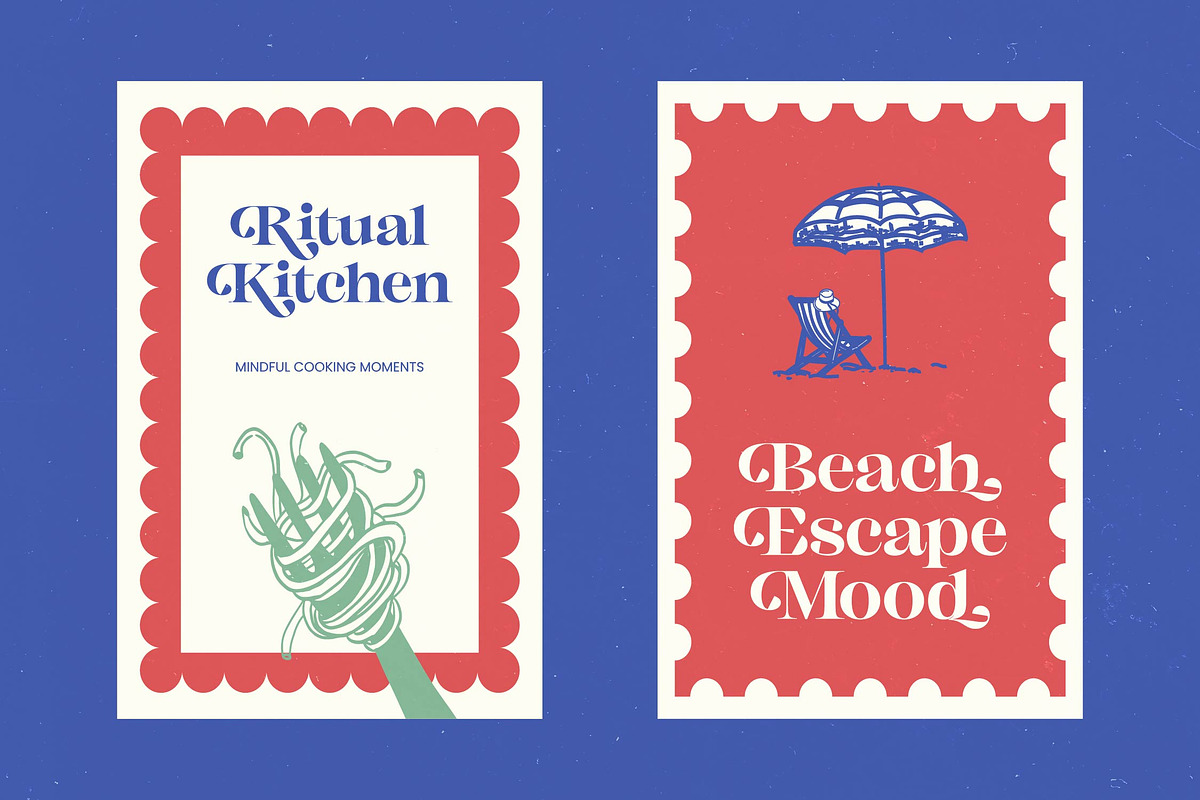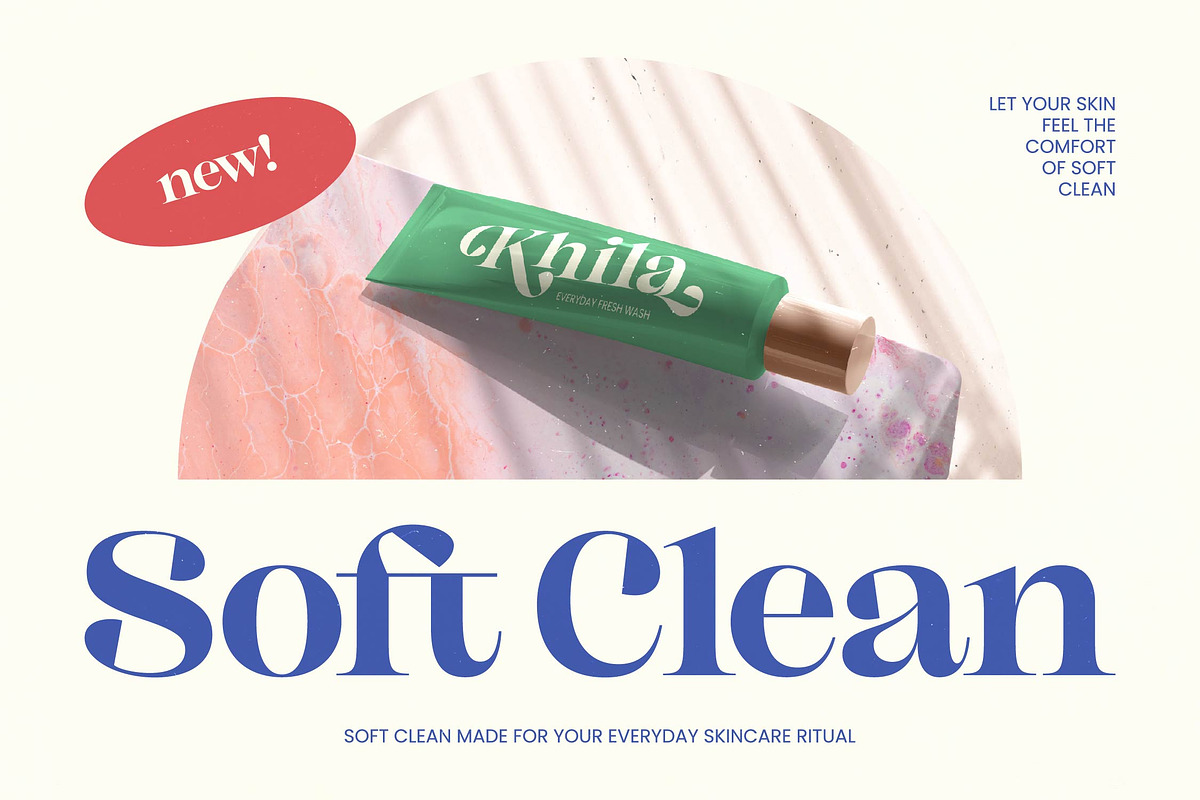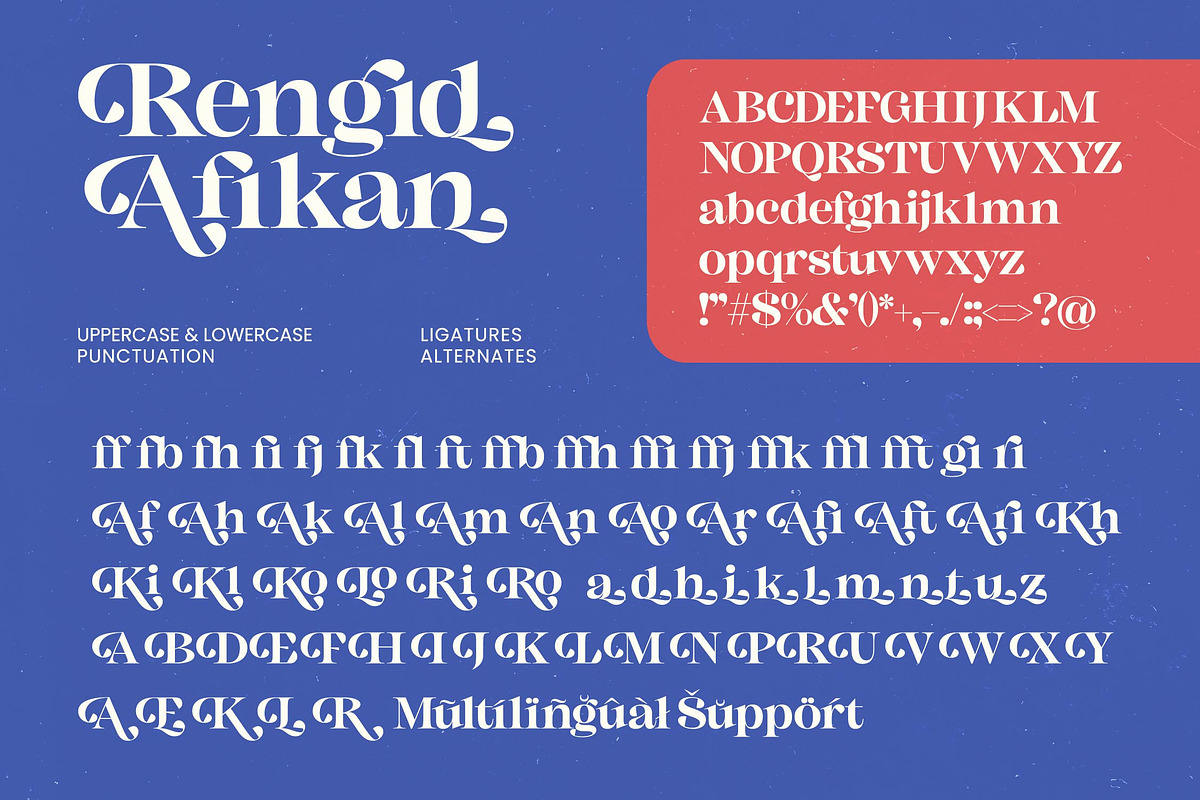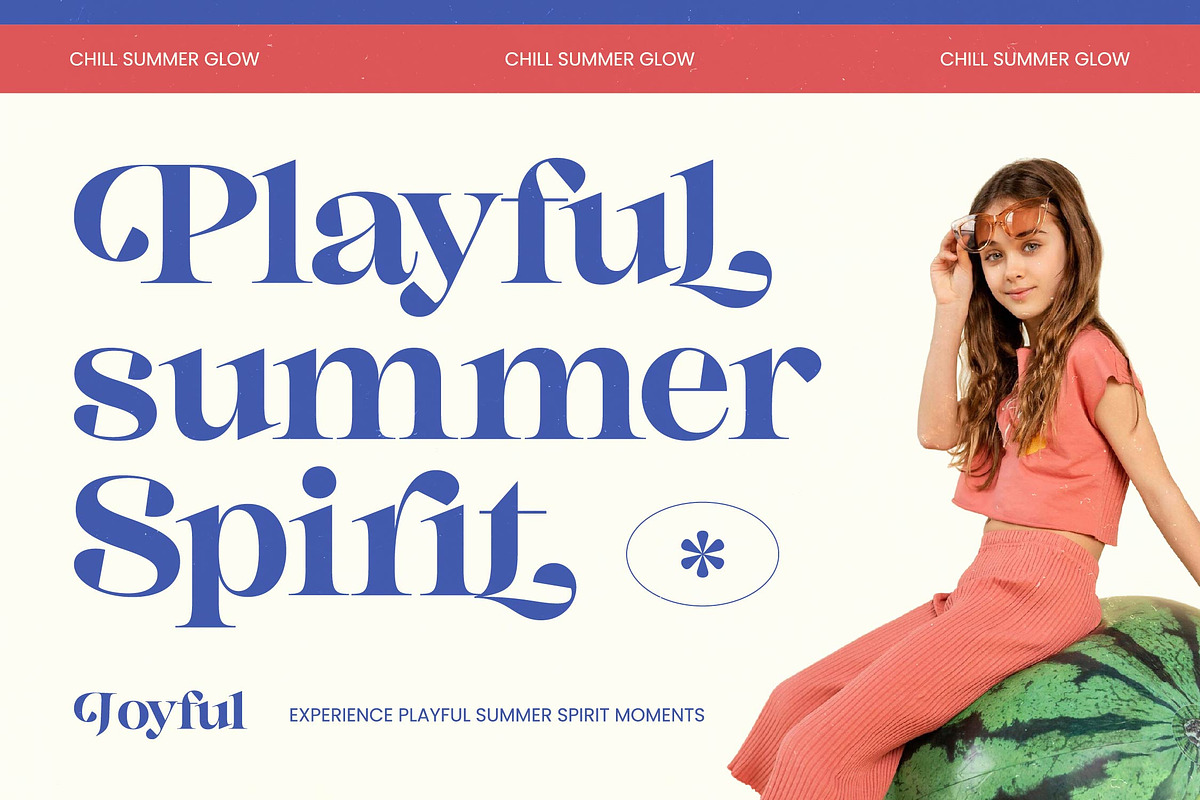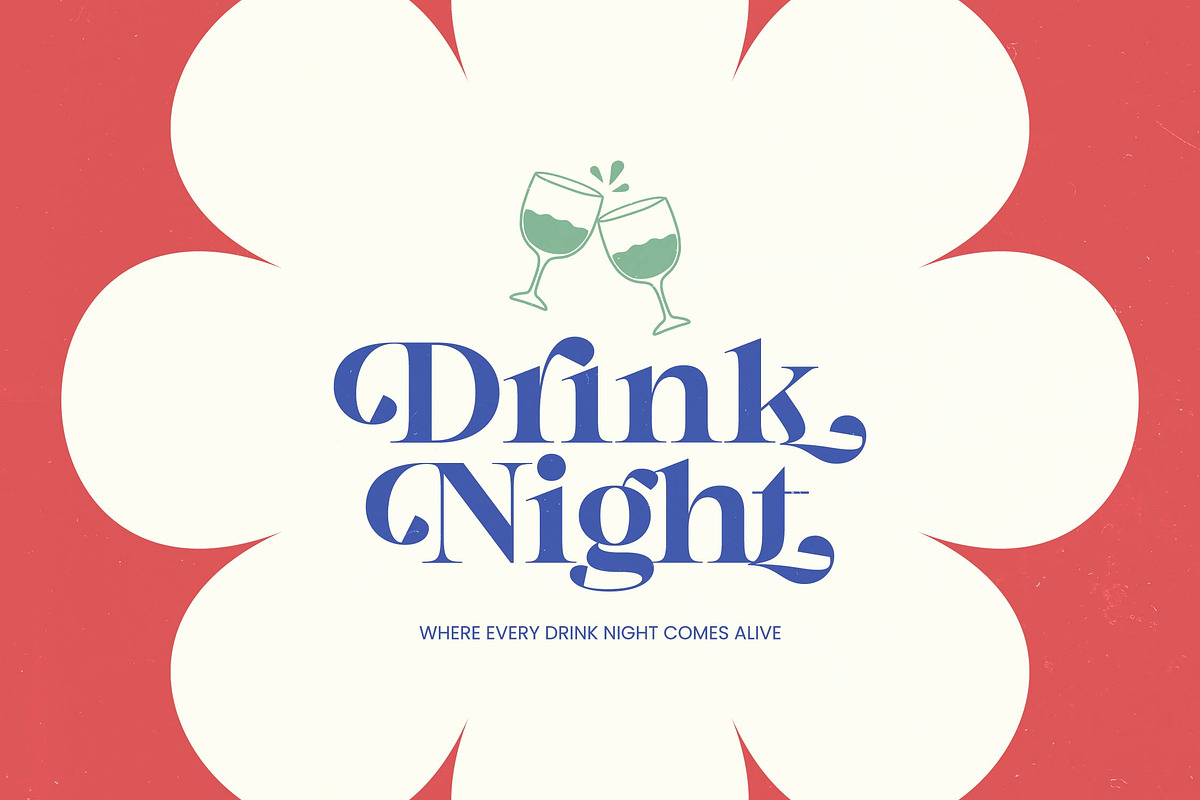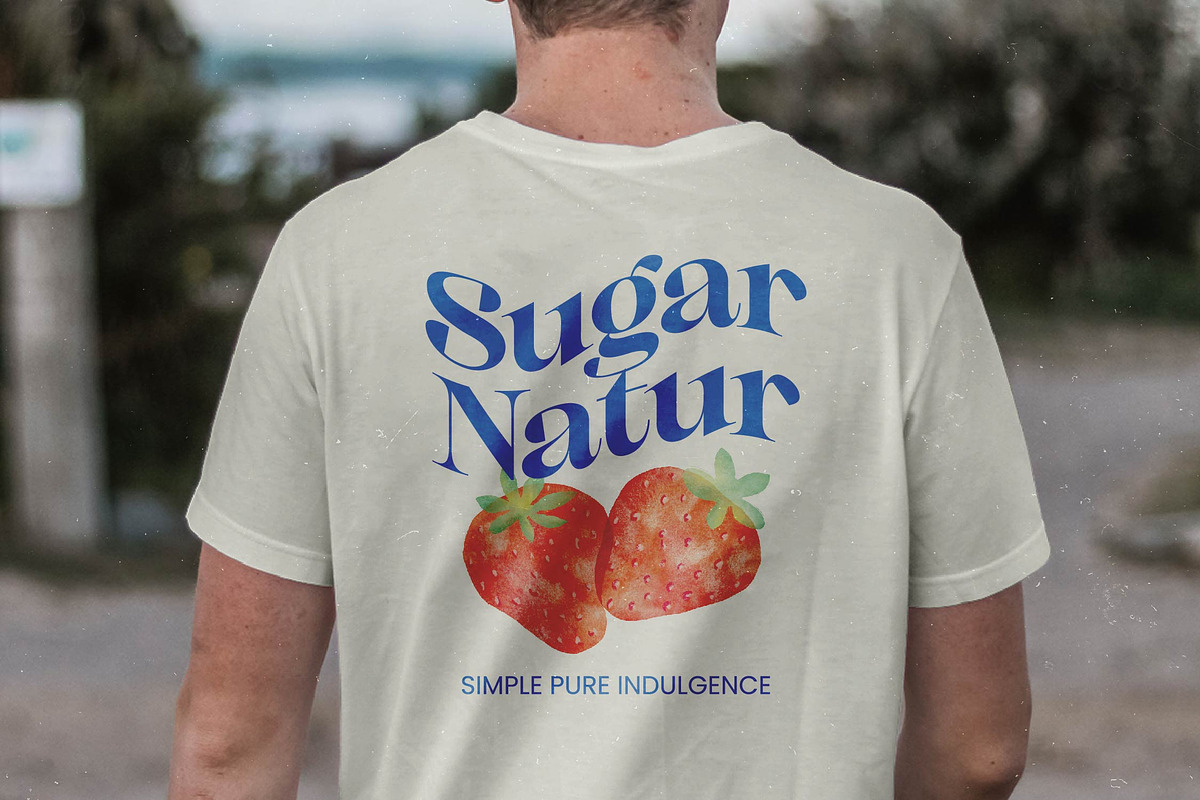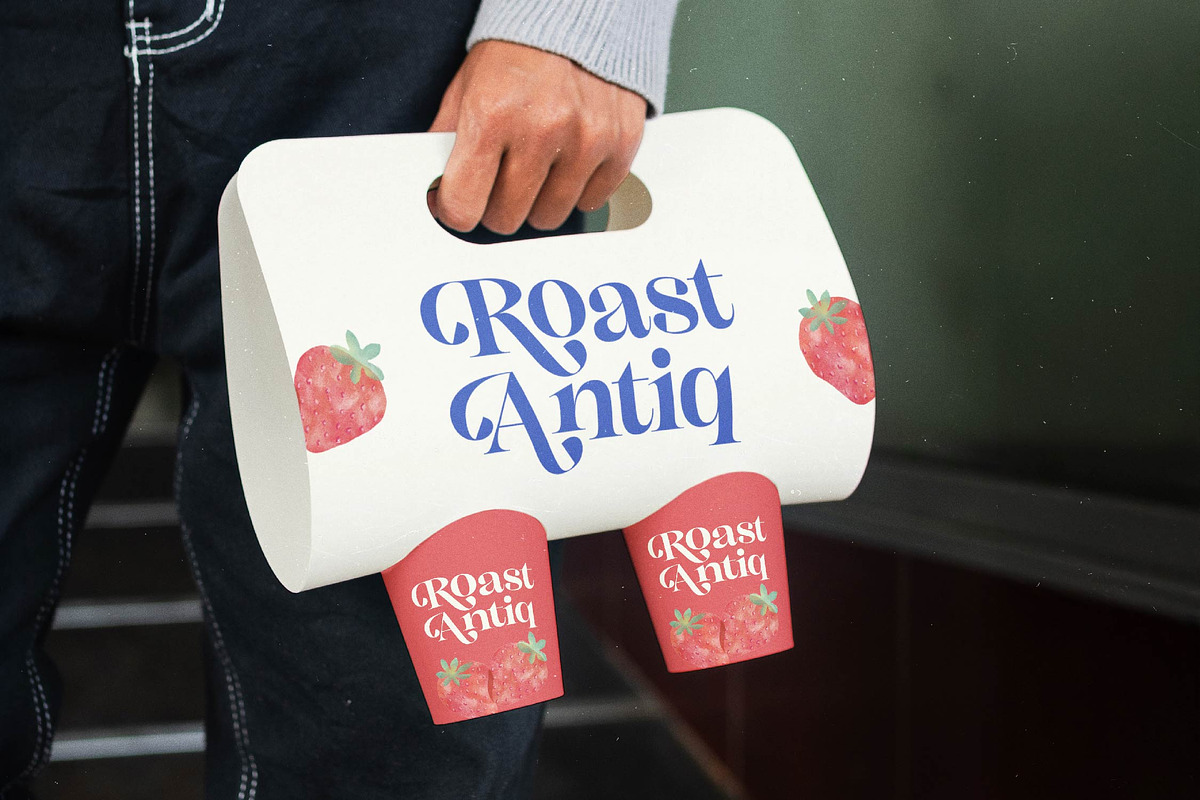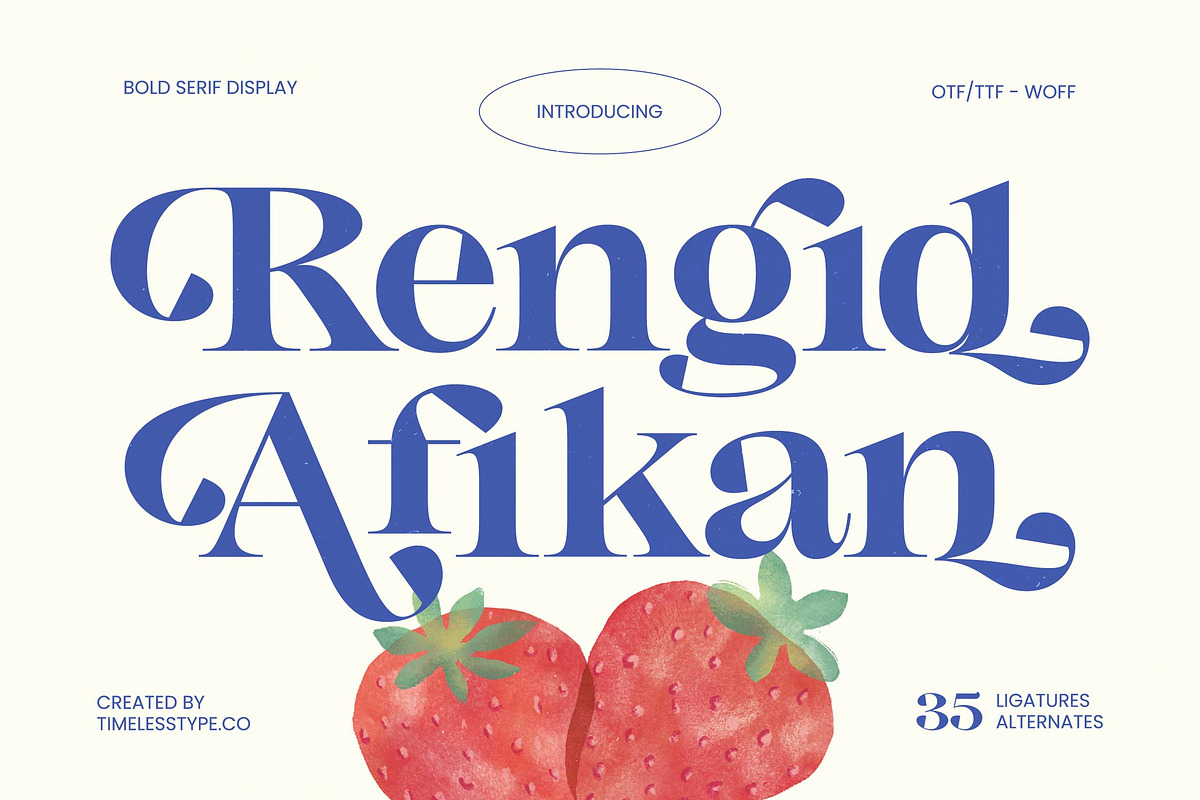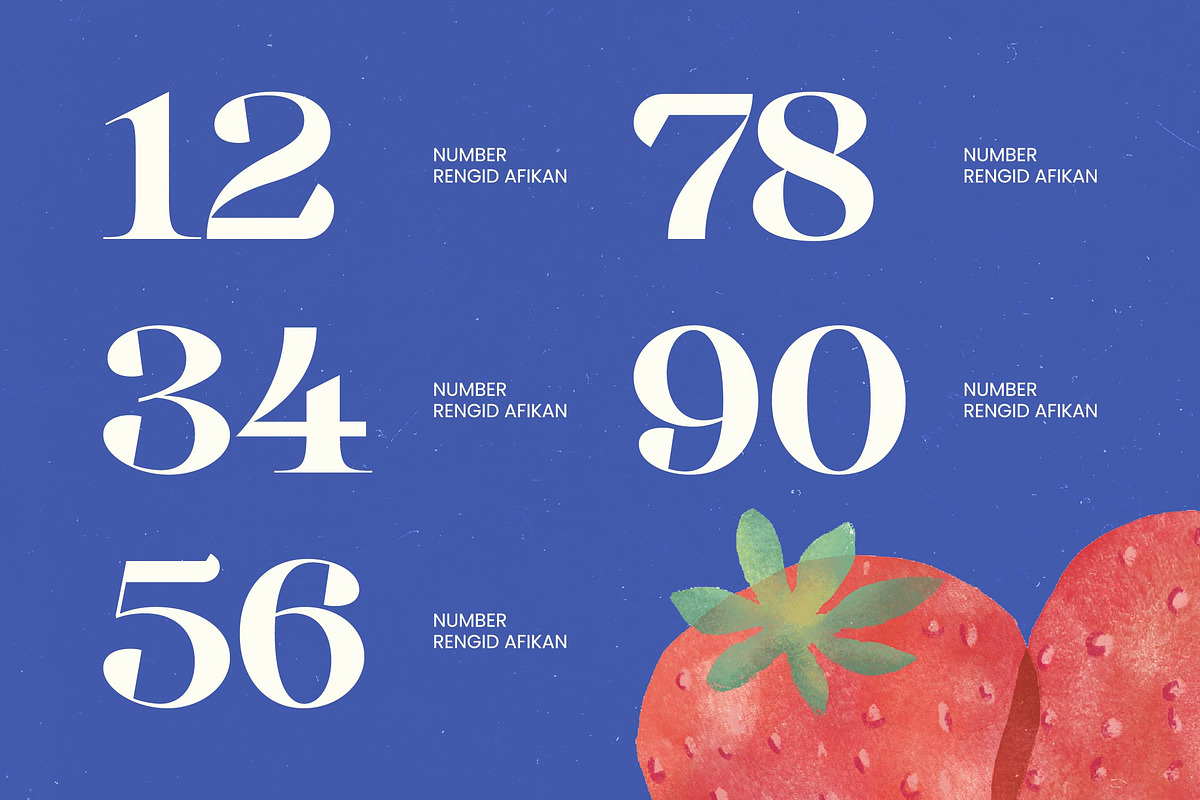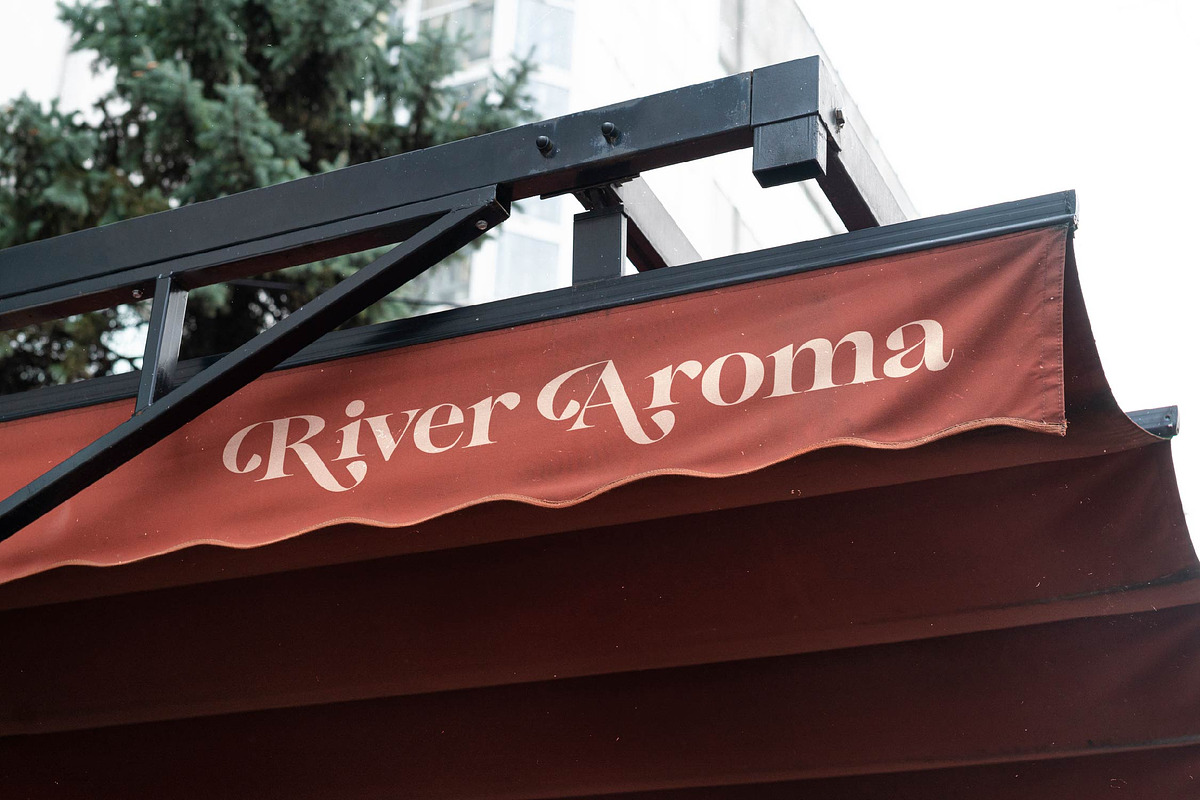
Rengid Afikan Bold Serif Display
**Rengid Afikan - Bold Serif Display , **Command attention with the sophisticated and commanding presence of Rengid Afikan - Bold Serif Display. This typeface represents a masterful fusion of high-contrast strokes and fluid, organic curves, designed to capture the essence of modern luxury. By blending classical serif foundations with contemporary flair, Rengid Afikan - Bold Serif Display creates a visual impact that is both authoritative and elegant, making it an essential asset for any premium design toolkit.
With its extensive multilingual support, Rengid Afikan - Bold Serif Display adapts seamlessly across global markets, making it incredibly versatile for international projects. This robust character set ensures that your brand’s voice remains consistent and powerful, regardless of the linguistic landscape or geographical boundaries of your target market. Expand your creative reach and communicate effectively with a worldwide audience using this versatile typographic solution.
Elevate your brand identity to prestigious new heights through strategic application and visual excellence. Rengid Afikan - Bold Serif Display is the ultimate choice for luxury branding, high-end packaging, and editorial design. It is perfect for creating striking headlines, sophisticated logos, and premium advertising campaigns. Whether featured in fashion editorials or artisanal lifestyle branding, Rengid Afikan - Bold Serif Display guarantees a memorable and distinct presence.
Transform your creative vision into a professional masterpiece with unparalleled typographic flexibility. Rengid Afikan - Bold Serif Display includes a comprehensive collection of 35 ligatures and alternates, allowing designers to achieve custom-tailored aesthetics with ease. This bold serif display font offers a perfect harmony of artistic expression and commercial viability. Investing in Rengid Afikan - Bold Serif Display is a commitment to timeless design quality and superior visual communication.